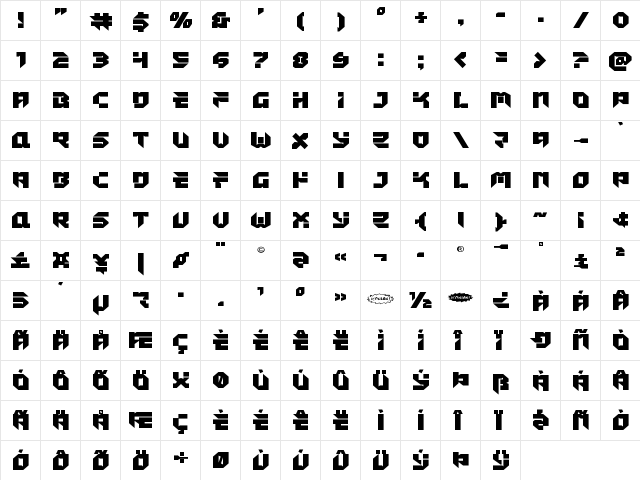
Tokyo Drifter Straight Expanded Expanded
Design Context for Tokyo Drifter Straight Expanded Typeface
Tokyo Drifter Straight Expanded is a composed and adaptable typeface that performs quietly and consistently across a wide range of design contexts.
Pro Tip: Use Tokyo Drifter Straight Expanded in both headline and body roles to test its range before committing to a single application.